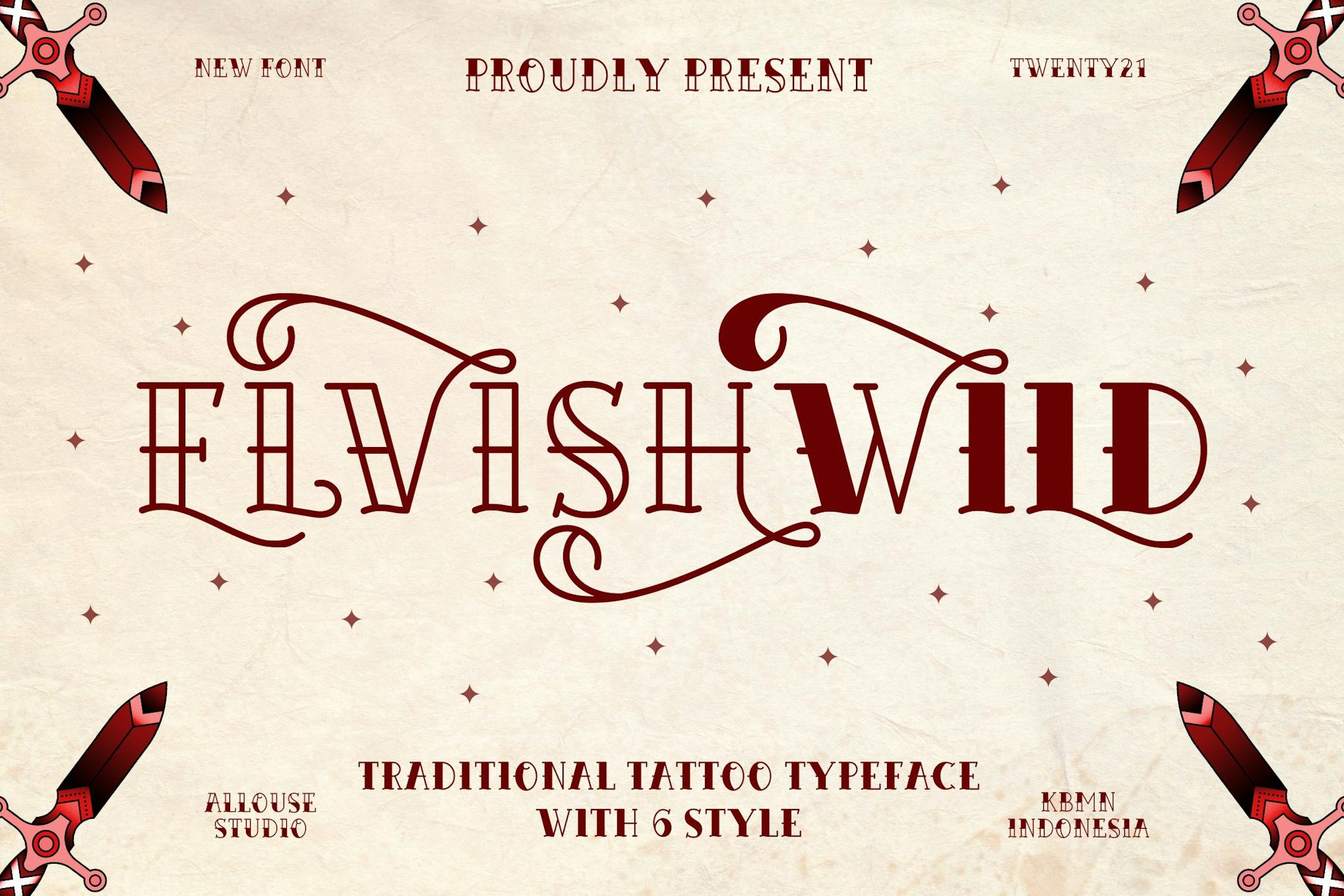
AL - Elvishwild Font
AL - Elvishwild Font Free Download offers a journey into a world of magic and fantasy with its enchanting and elegant design. While you can download this font for free for testing purposes, you must purchase this font for commercial use to truly harness its power. This mystical typeface is an excellent choice for fantasy book covers, gaming titles, movie logos, magical-themed branding, and themed event posters. What makes this font so exciting is its ability to evoke a sense of ancient wisdom and untamed nature, with delicate curves and intricate details that feel straight out of a legendary tale. The AL - Elvishwild font family includes a range of styles, such as Regular, Bold, and an artistic Alternative set, providing a rich and complete set for your creative needs.
This font is more than just a set of letters; it’s a portal to another world. The design of AL - Elvishwild is inspired by the flowing scripts of elven lore and the natural beauty of mythical forests. The letterforms possess a sophisticated yet whimsical quality, perfect for projects that require a touch of fantasy and elegance. Its distinctive look ensures that your headlines and titles will capture the imagination of your audience and stand out from the conventional. Whether you are a fantasy writer needing a font for your book’s title or a game developer creating a logo for a new world, this typeface provides the perfect blend of readability and mystical charm.
The meticulous details in each character of the AL - Elvishwild font ensure a professional and polished appearance. Its versatile nature allows it to work beautifully in both large display text and smaller subheadings, maintaining its magical integrity at any size. The Alternative set offers unique swashes and stylized characters that give you even more freedom to personalize your designs and create truly one-of-a-kind typographic compositions. This makes it an invaluable asset for designers who need to create custom, branded content that resonates with a sense of wonder and adventure.